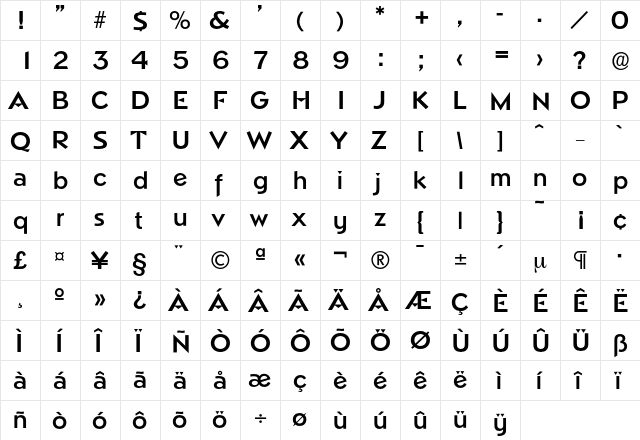
Napoli-DemiBold Regular Font Preview
Napoli-DemiBold Regular
Design Context for Napoli-DemiBold Typeface
Napoli-DemiBold offers clean, dependable letterforms without strong stylistic allegiance, making it a practical choice for designers who need flexibility. Its bold stroke weight gives it real presence on the page.